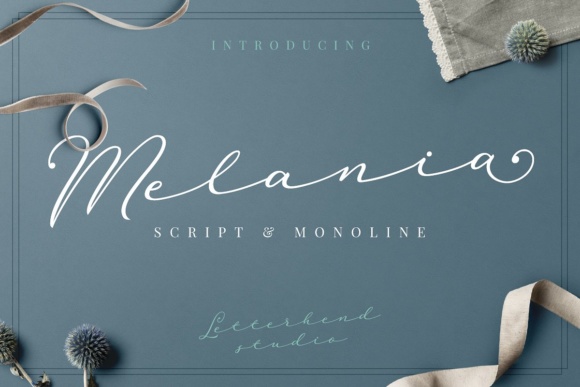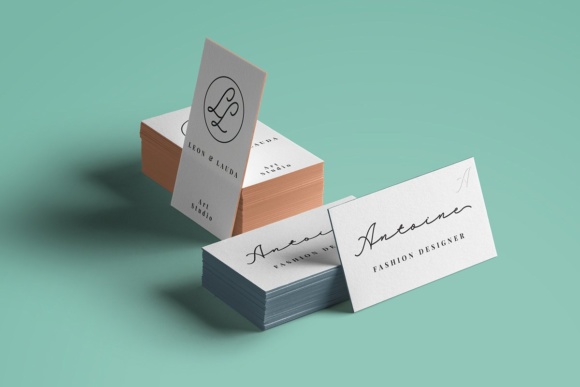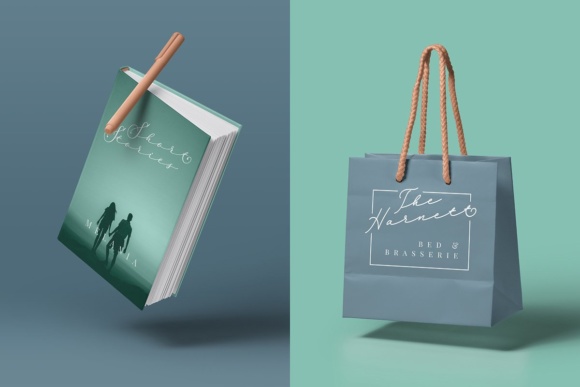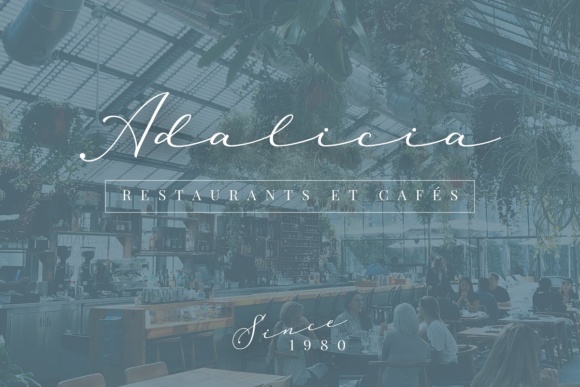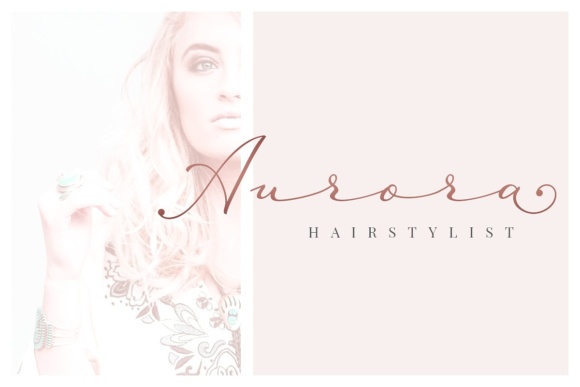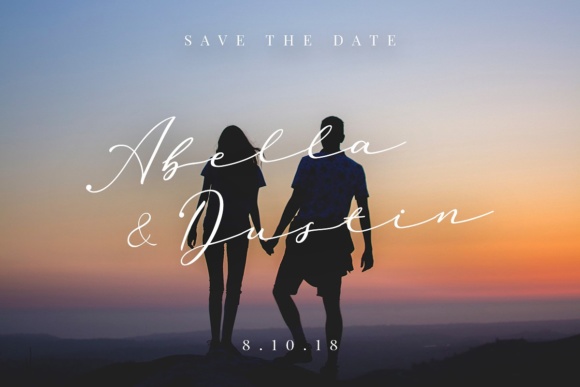
Introduction to Melania Script Font
A script font that is created by natural hand writing and gives you the feminine touch that you’ve been looking for.
The irregular spacing brings a personal & unique feeling which is very suitable for signatures, wedding invitations, headlines, quotes, etc .
Melania Script Font offers exceptional quality and versatility, making it a valuable addition to your design toolkit. Whether you’re creating for personal projects or commercial use, Melania Script Font delivers professional results.